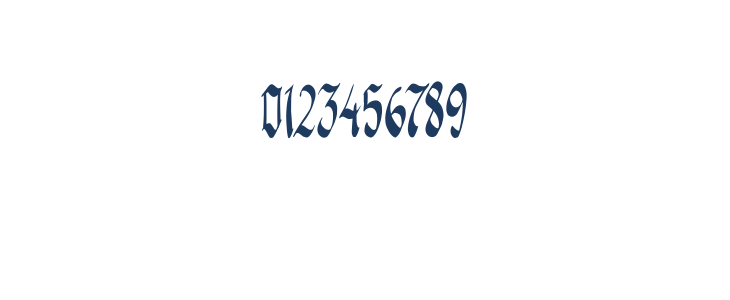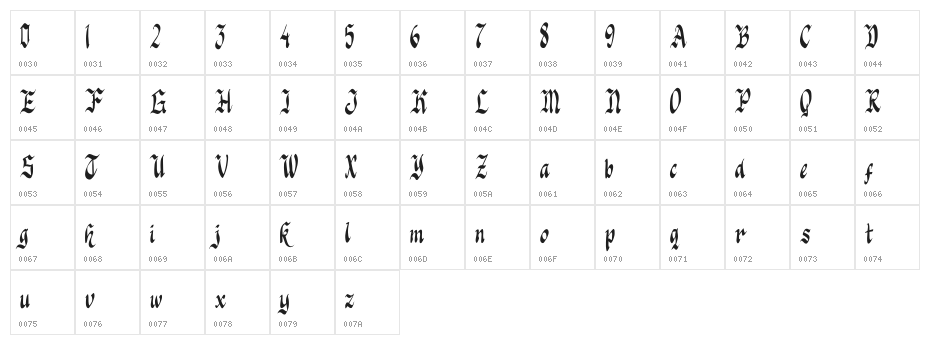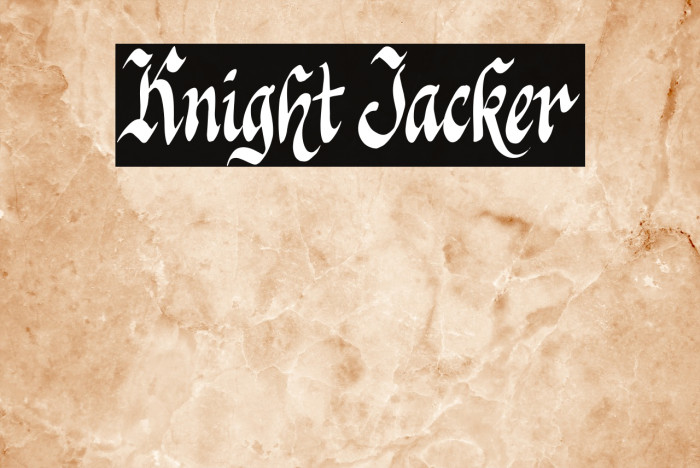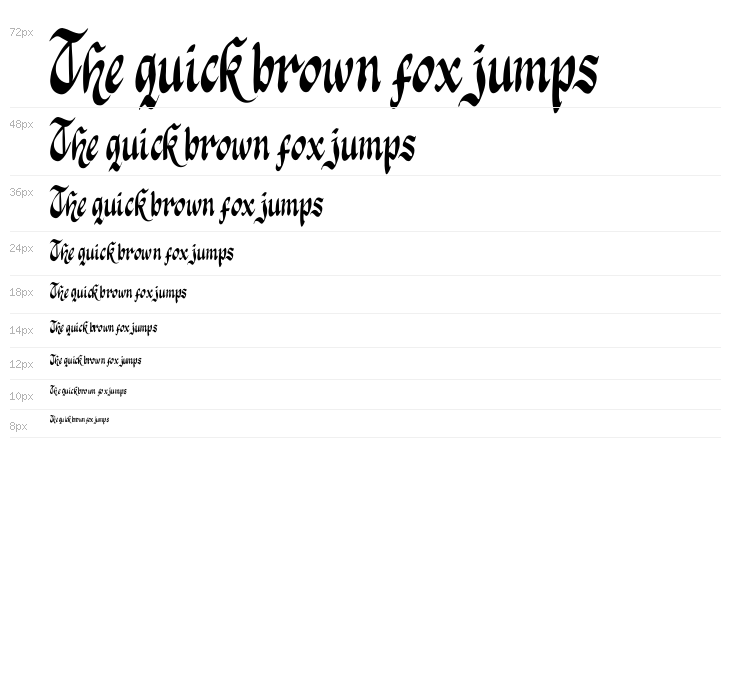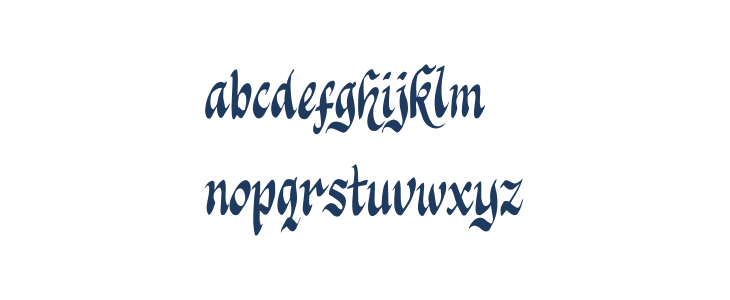
Knight Jacker Font
Knight Jacker Description
This font exhibits a classic blackletter style, characterized by its ornate and intricate letterforms. The uppercase letters are bold and dramatic, with sharp angles and elaborate curves that evoke a sense of historical elegance. The lowercase letters maintain the same decorative style, offering a cohesive look throughout. The numerals are equally stylized, fitting seamlessly with the overall aesthetic. This font's unique flair makes it ideal for projects that require a touch of medieval or gothic charm. Its distinct appearance ensures that it stands out, making it a great choice for headlines, logos, and decorative purposes.
| Overall Style | Vintage |
| Use Case | Headlines, Logos, Decorative |
| Proposed Projects | Ideal for historical-themed designs, gothic or medieval projects, book covers, and decorative logos. |